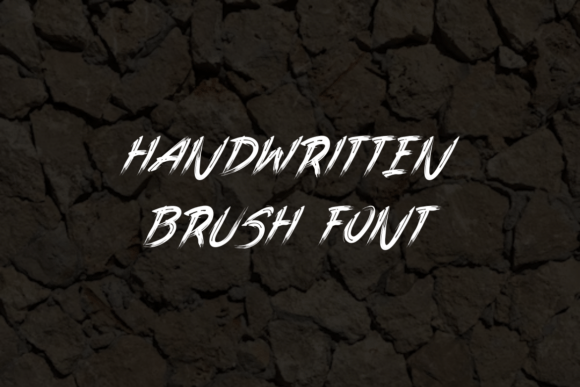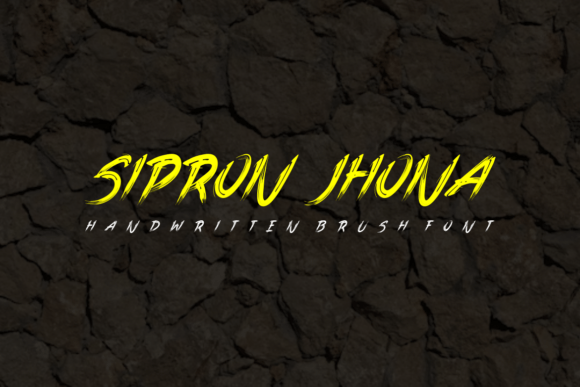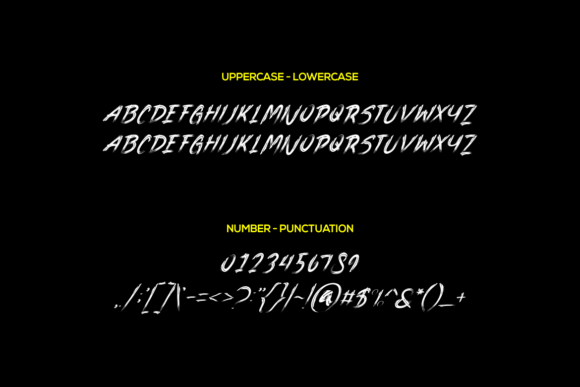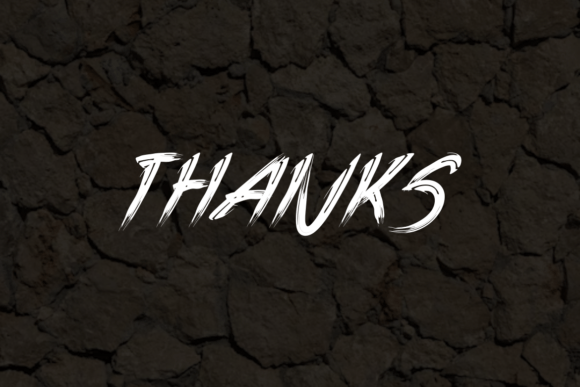
Introduction to Sipron Jhona Font
Sidron Jhona Font is an edgy, energetic handwritten brush font that exudes boldness and movement.
Ideal for sports branding, action-packed designs, posters, and dynamic logos, this font delivers a gritty, rebellious vibe thatโs perfect for capturing attention and making a statement .